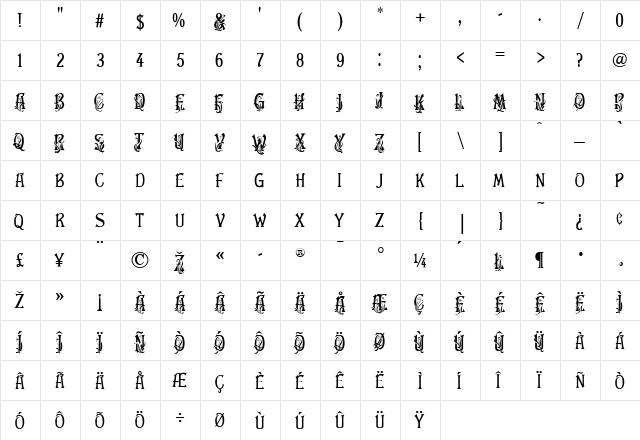
FloralLatin Regular
| Foundry | Digitized by Dan X. Solo. Software \ Dover Publications, Inc |
Design Context for FloralLatin Typeface
FloralLatin is a composed and adaptable typeface that performs quietly and consistently across a wide range of design contexts.